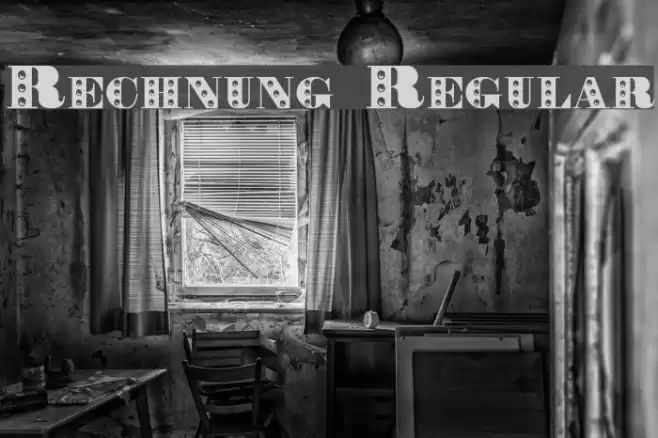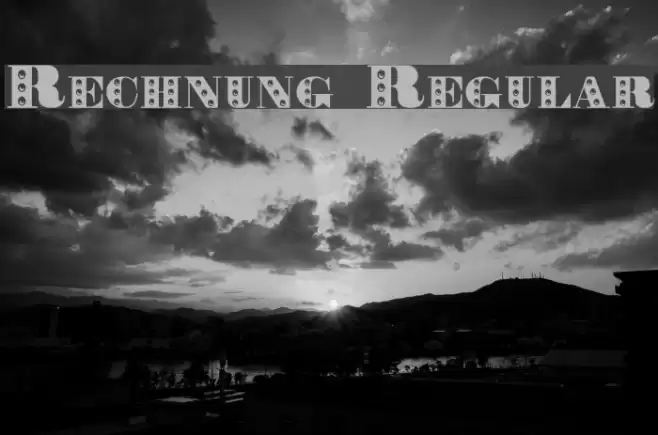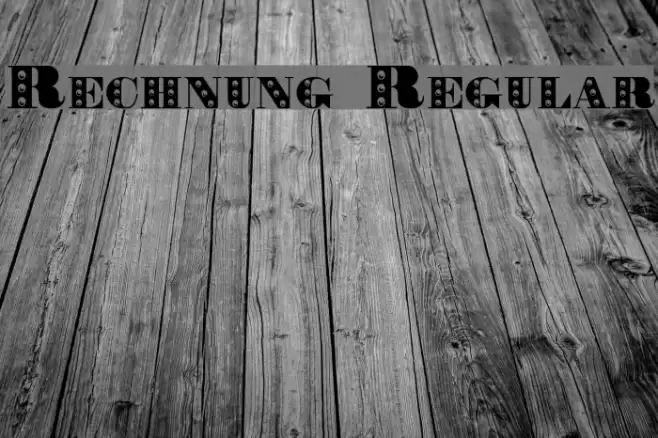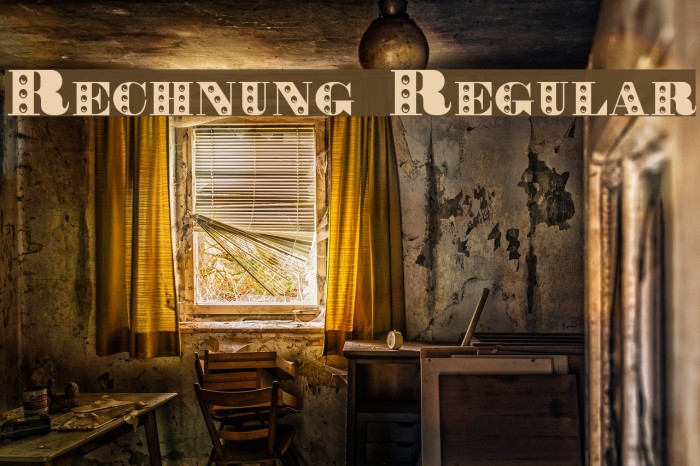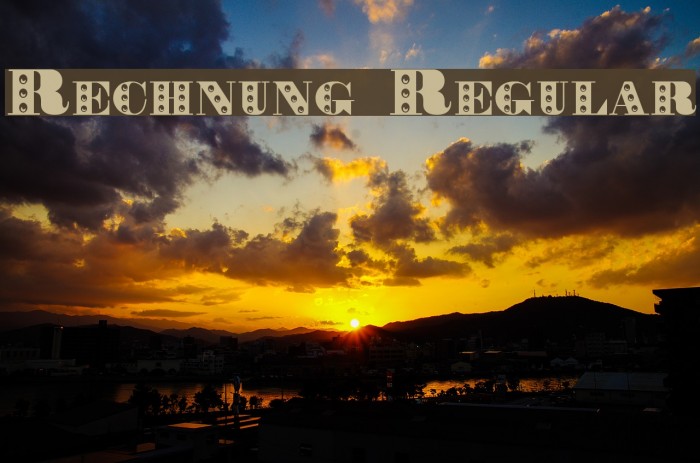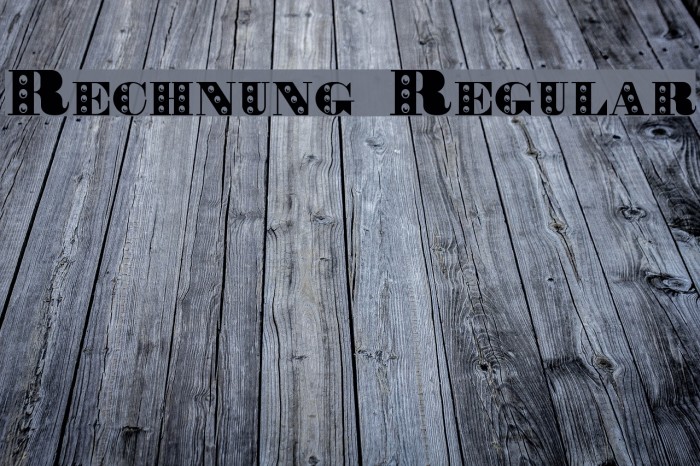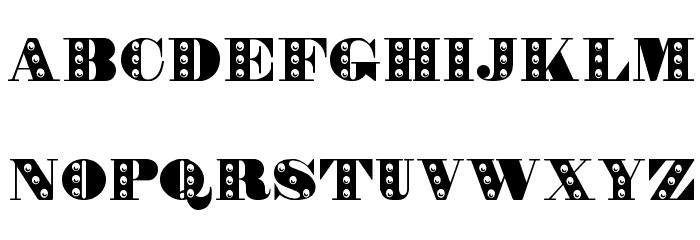
Rechnung Regular Font
Rechnung Regular Description
This font features a bold and decorative style, characterized by its unique use of dots within the letterforms, reminiscent of marquee lights or vintage signage. The uppercase letters are designed with a strong presence, making them ideal for attention-grabbing headlines or display purposes. The font's playful and theatrical appearance is enhanced by the dotted embellishments, which add a sense of whimsy and creativity. The overall design is balanced, with each letter maintaining a consistent weight and proportion, ensuring readability despite its decorative nature.
A bold, decorative font with dotted embellishments, ideal for eye-catching designs from Uncategorized fonts.
- Proposed Projects: Perfect for vintage-themed posters, theatrical event flyers, or any project needing a playful, eye-catching typeface.
- Overall Style: Vintage